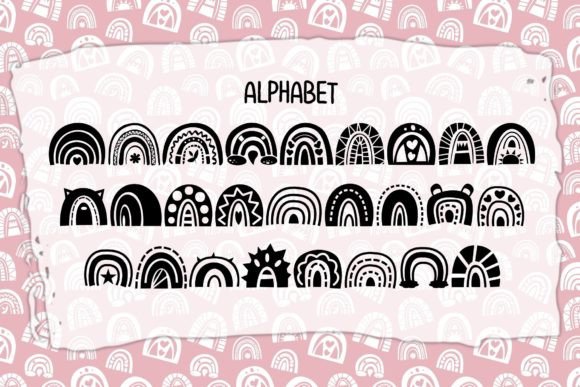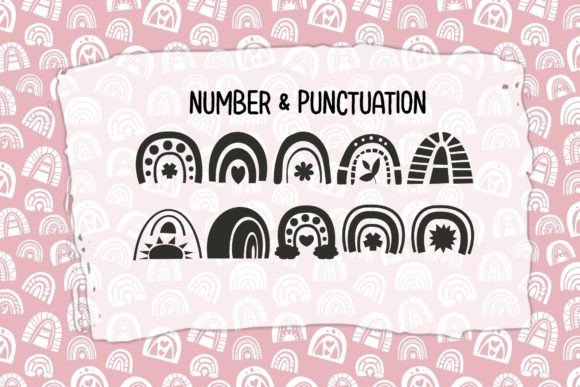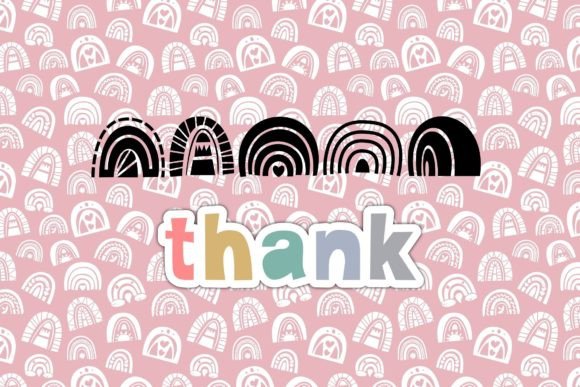
The Ultimate Guide to Funny Rainbow Font: Adding a Pop of Color to Your Designs
I’ll never forget the time I was working on a project for a client’s children’s birthday party, and I just couldn’t find the right font to match the playful vibe. The design was already coming along great, but the text just felt… flat. That’s when I stumbled upon the Funny Rainbow font, and it was like a ray of sunshine (or should I say, a rainbow?) burst into my design world! 🌈
An Honest Review of Funny Rainbow Font
So, what makes Funny Rainbow font so special? Let’s dive into the good stuff and a few quirks to keep in mind.
- ✨ Perfect for playful designs: This font is a dingbats dream come true, with a fun and quirky vibe that’s perfect for kids’ projects, party decorations, or anything that needs a dash of whimsy.
- ✅ Versatile: Use it for logos, wall art, signs, cards, art prints, t-shirts, coloring pages – the list goes on!
- 🎨 Colorful: The rainbow theme is, of course, a huge draw. It’s a great way to add visual interest to your designs without being too overwhelming.
- 🤔 Not suitable for body text: This font is best used for headlines, titles, or short phrases. It’s a bit too playful for longer blocks of text.
- ⚠️ Limited legibility: Some characters might be harder to read, especially at smaller sizes. Make sure to test it out before committing to a specific design.
A Practical Guide to Using Funny Rainbow Font
Now that we’ve covered the basics, let’s get into the nitty-gritty of using Funny Rainbow font in your designs.
One of the best things about Funny Rainbow font is its OpenType features and glyphs. These allow you to customize your text even further, adding extra flair to your designs. Here are a few tips:
- Stylistic alternates: Switch between different versions of letters or symbols to create a more dynamic look.
- Glyphs: Access special characters, like hearts, stars, or other decorative elements, to add visual interest.
The Backstory Behind Funny Rainbow Font
Legend has it that the designer behind Funny Rainbow font was inspired by a childhood love of rainbows and a passion for playful typography. They wanted to create a font that would bring a smile to people’s faces and add a pop of color to their designs. And so, Funny Rainbow was born! 🌈